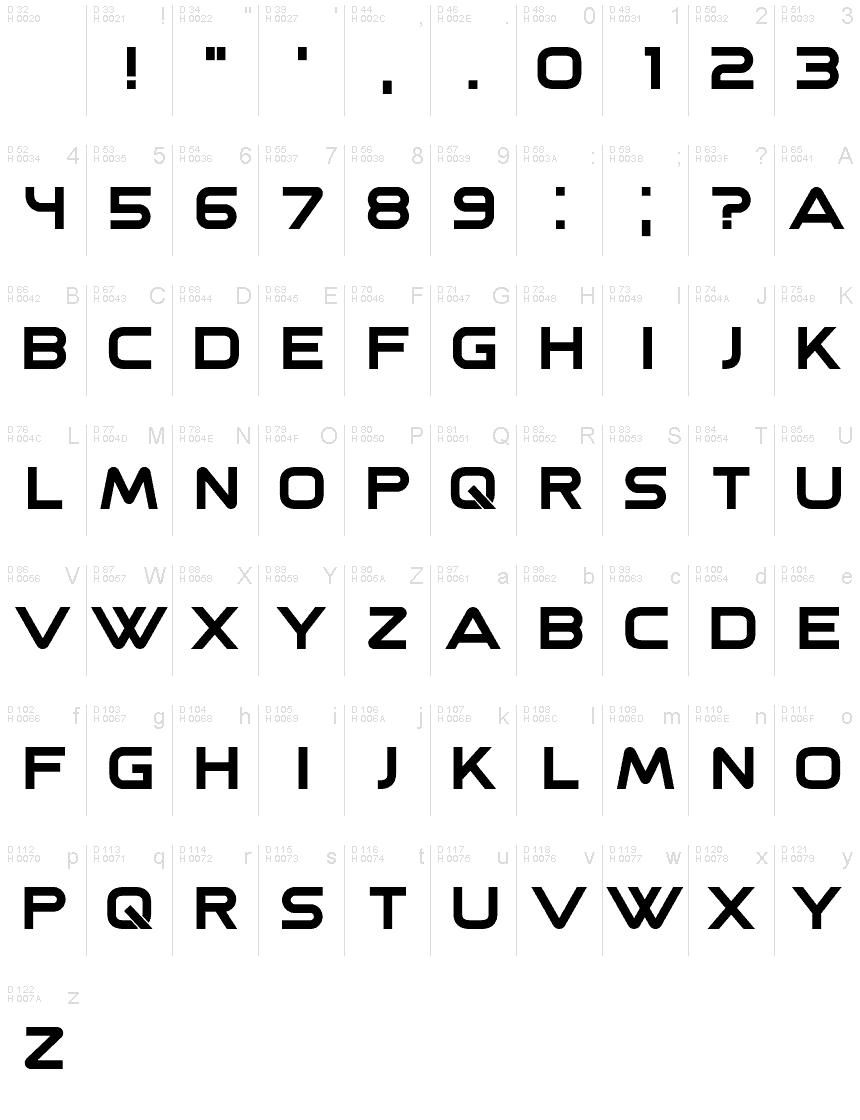
Consul Regular
Consul font is designed by Vladimir Nikolic, an artist known for his diverse series of font designs. This free sans-serif font has a modern geometric style with businesslike characters added to the mix. Even without any extra features or details, clarity and readability are maintained at all times and in all sizes. Minimalism might not always be the best approach to life’s big questions, but it delivers splendid letters for your next project!
A variety of projects can get a turnaround with Consul when you use it in posters or flyers designed for travel agencies and shopping brands. Finalize video games or e-games interfaces that can handle viewers’ and gamers’ excitement with clear information about rules and prizes. Surround the signage visitors read at amusement parks or museums with fun displays that keep them entertained! Do not hesitate to consider this expanded font for yourself because even a simple text design can benefit largely from it!